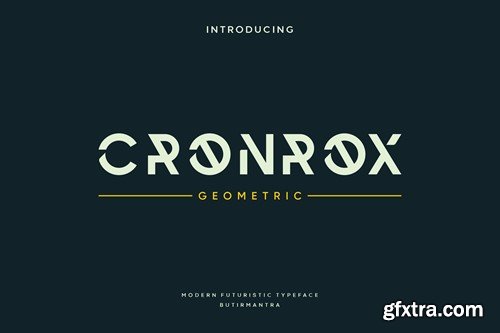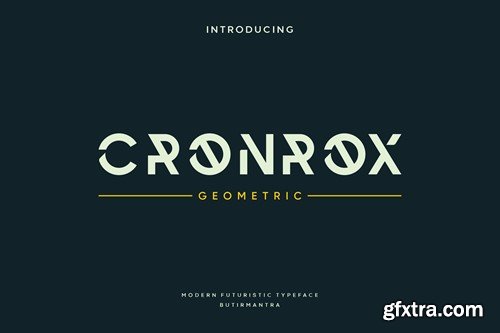
Cronrox - 模块化字体 5SFNXUE
Cronrox - Futuristic Font
Cronrox is a font that is stylish, clean, clear, firm and still looks luxurious, comes with a different style of unique lowercase letters. Cronrox is a modern geometric and futuristic typeface. This font is suitable for use in business, branding, logo, brochure, poster, etc. Cronrox goal is to become a universal weapon not only because it works well in headlines, type, and long copies, but also because of its subtle neutrality. File Included : Thanks for subscribe and good luck with your project!